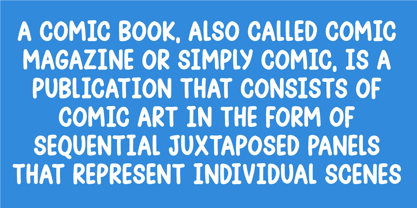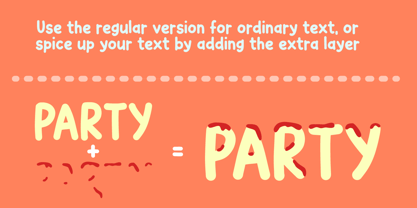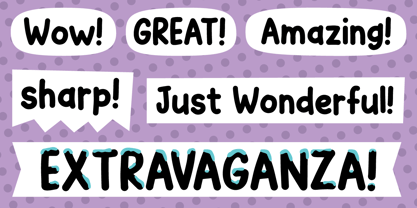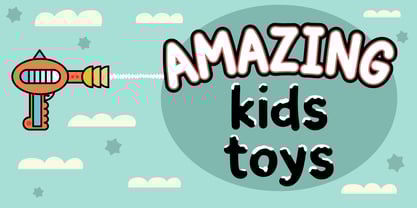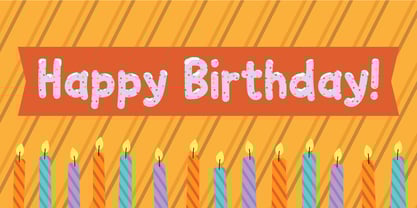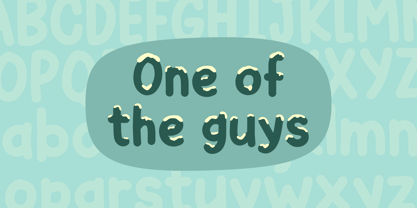
One Of The Guys Font
One Of The Guys Font is perfect for casual branding, playful poster designs, retro-style t-shirts, party invitations, and quirky social media graphics. Its relaxed and friendly vibe makes it a great choice for projects that aim to feel approachable and fun.
What makes One Of The Guys Font exciting is its hand-drawn charm and slightly imperfect shapes, which give it an authentic, human touch. This personality-packed style makes any text feel more engaging, like it’s coming from a friend rather than a corporate template.
The One Of The Guys Font family includes Regular, Bold, Italic, and Outline versions, giving designers plenty of ways to mix and match for creative variety. Whether you’re going for a nostalgic retro look or a playful modern feel, this font adapts effortlessly.